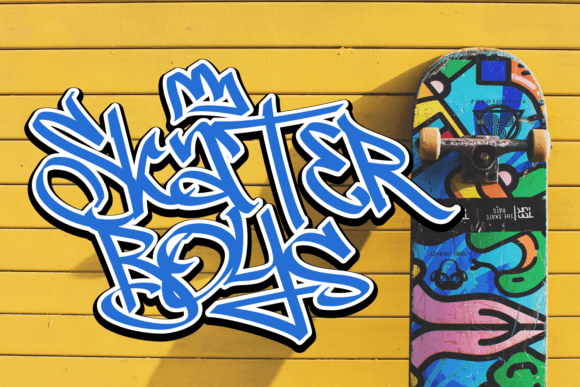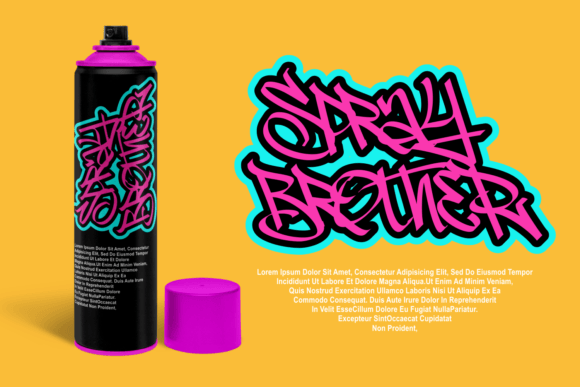
Starboys Font
The graffiti style font is an urban and expressive typeface that embodies the rebellious and vibrant nature of street art. Inspired by the bold and energetic brushstrokes found on city walls, this font captures the essence of graffiti culture.
The style of the graffiti font often incorporates various elements from street art culture. It may include arrows, stars, crowns, or other symbols commonly associated with graffiti. These elements further enhance the urban and edgy feel of the font, giving it a unique and recognizable identity.